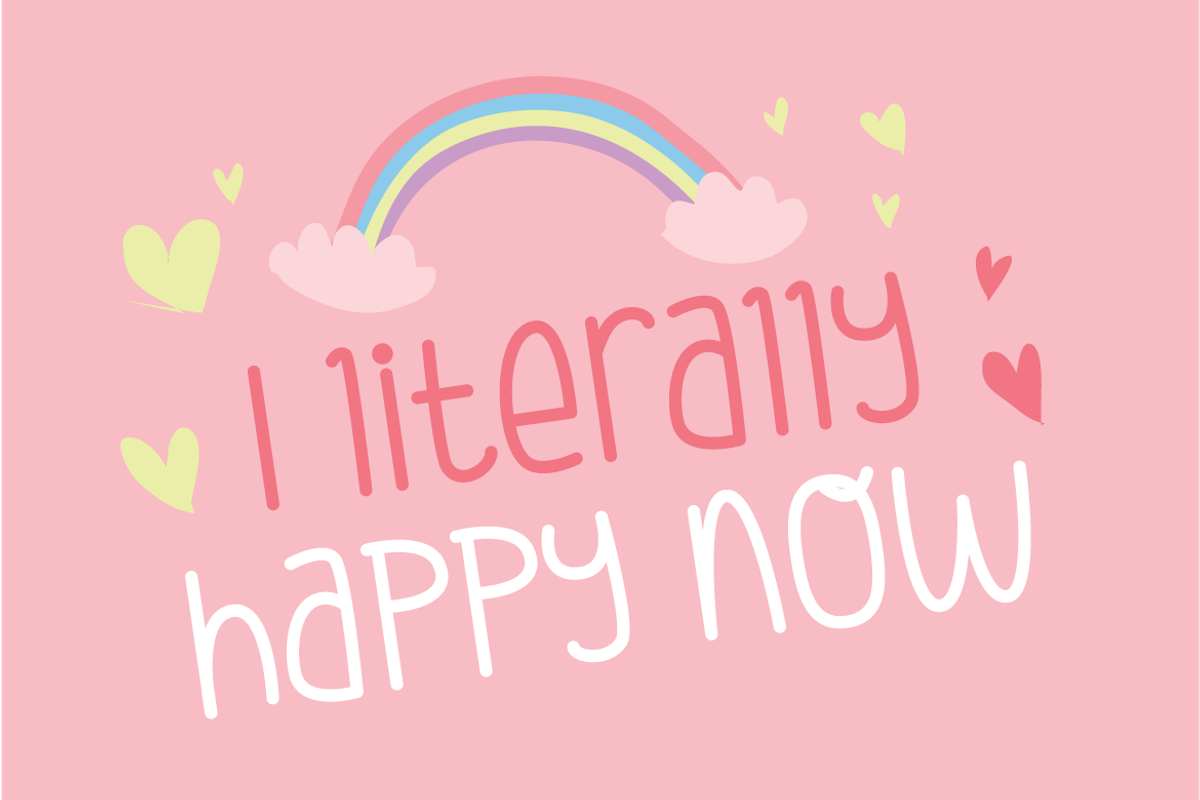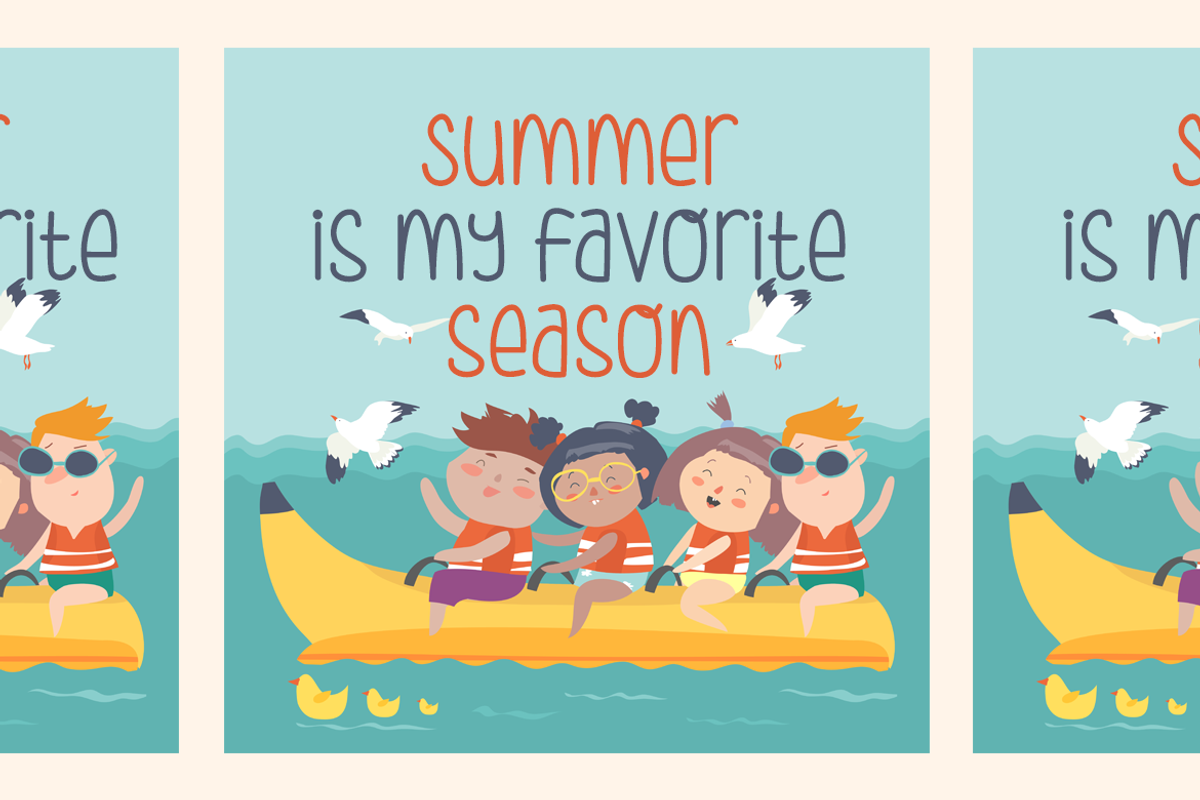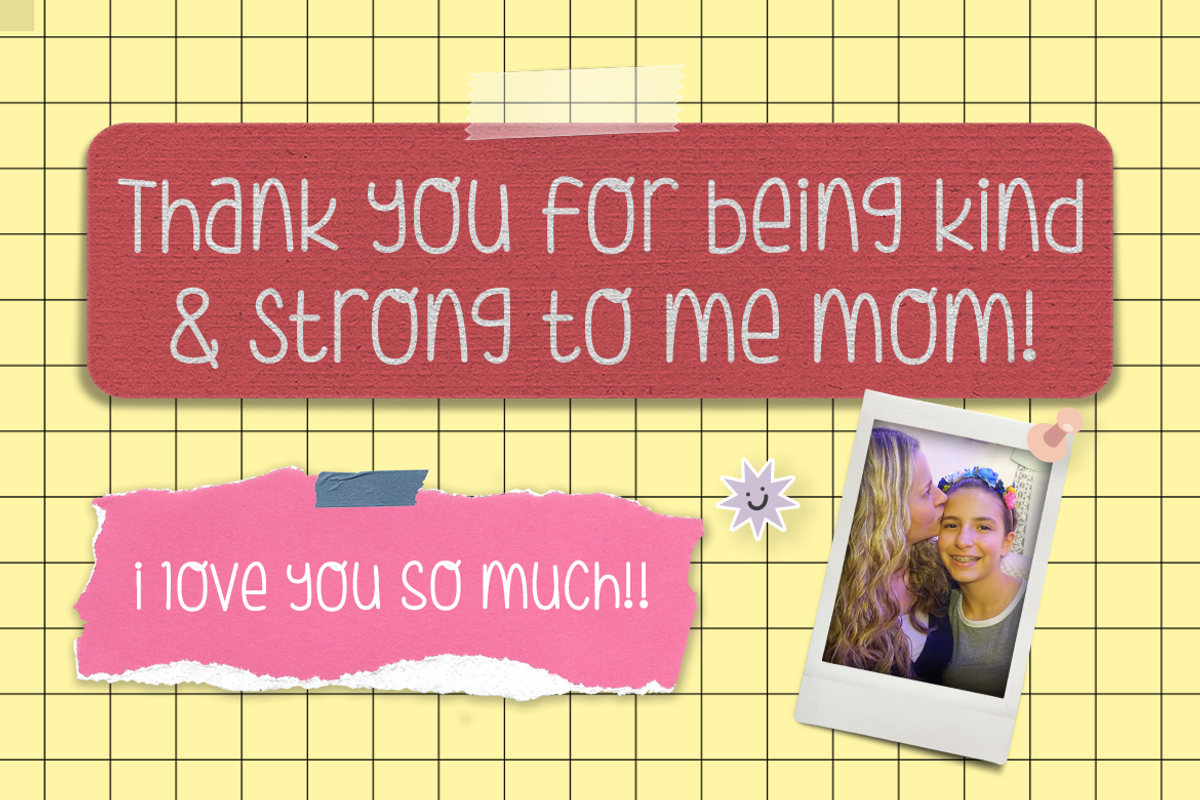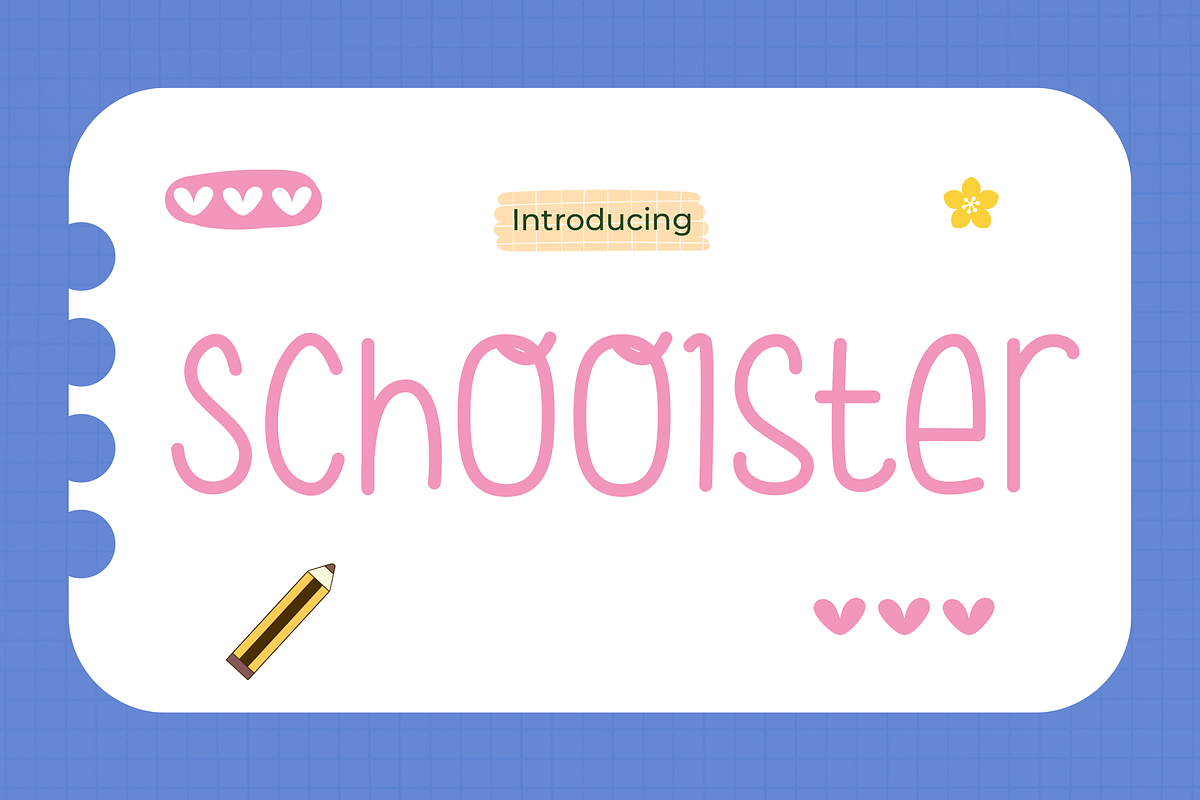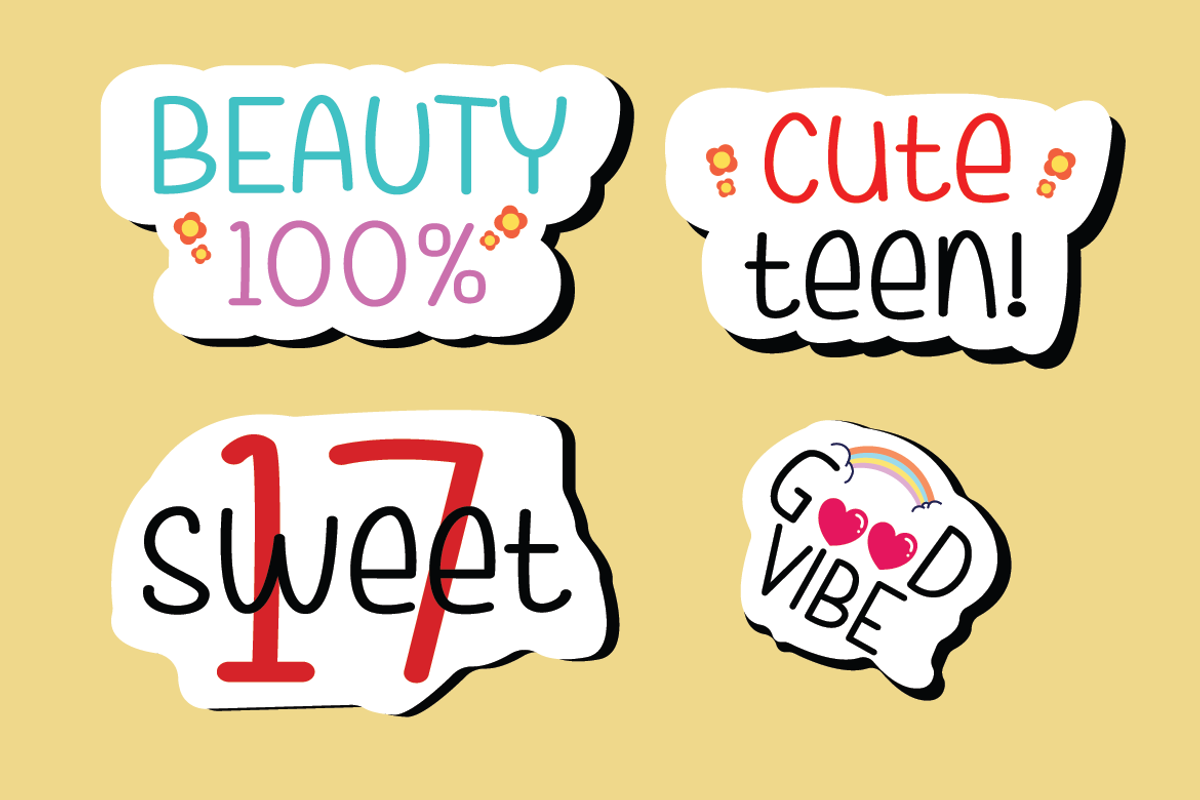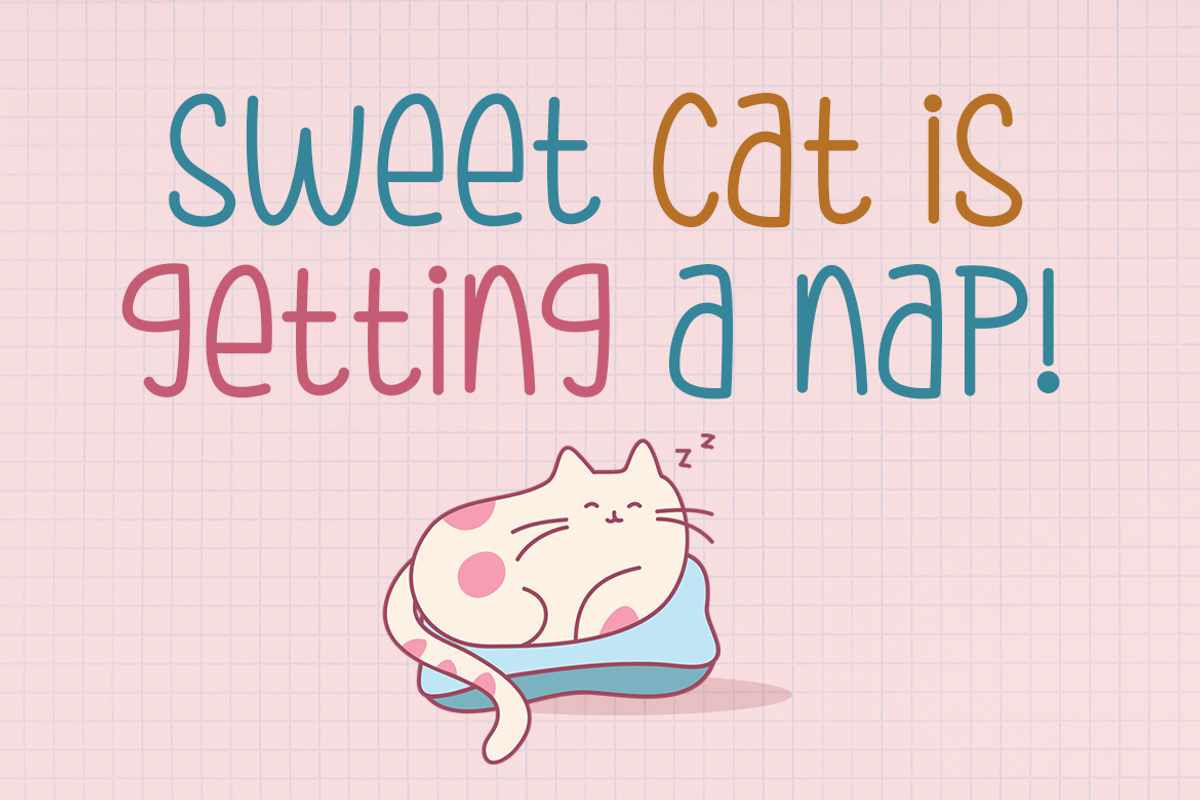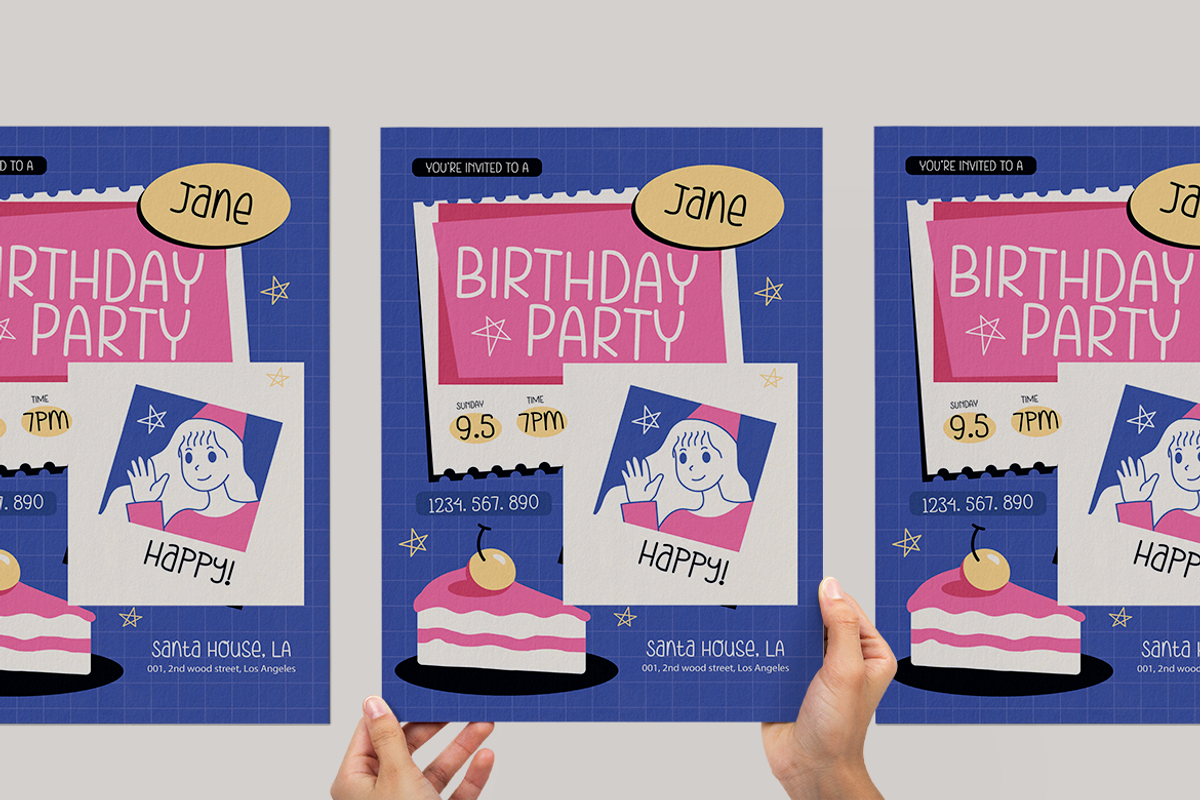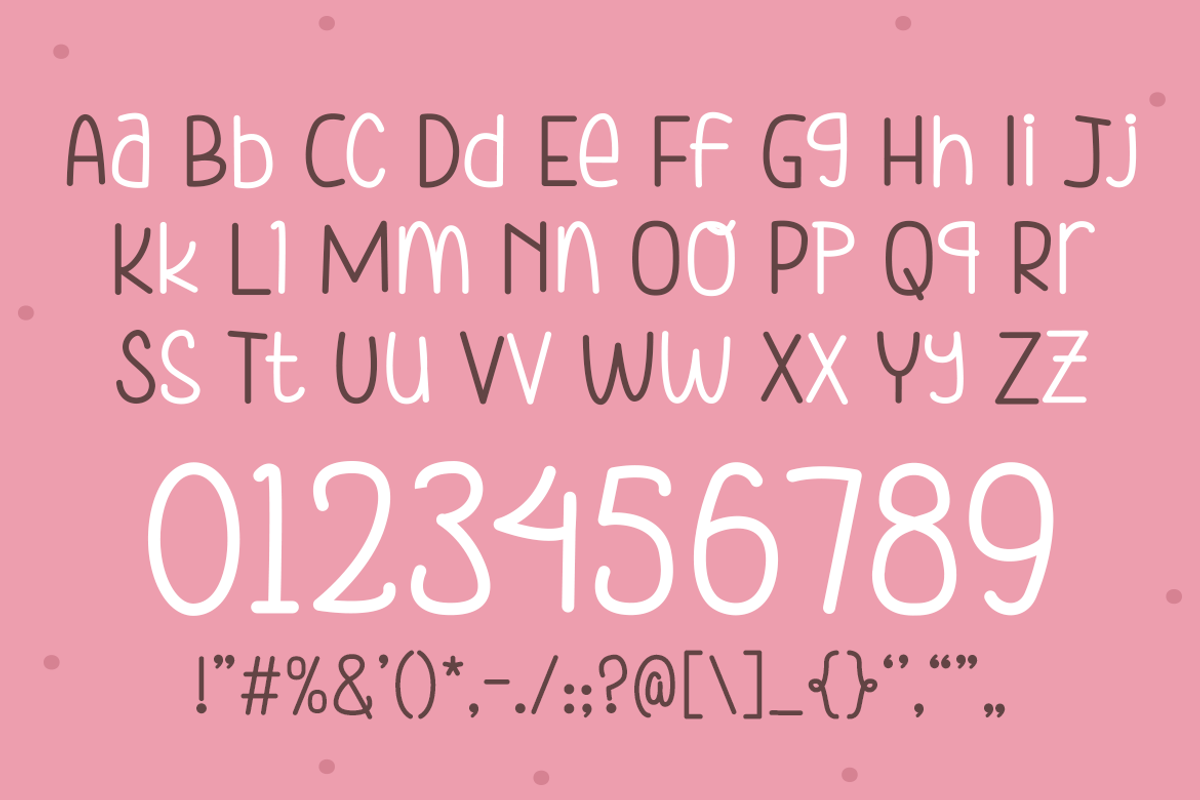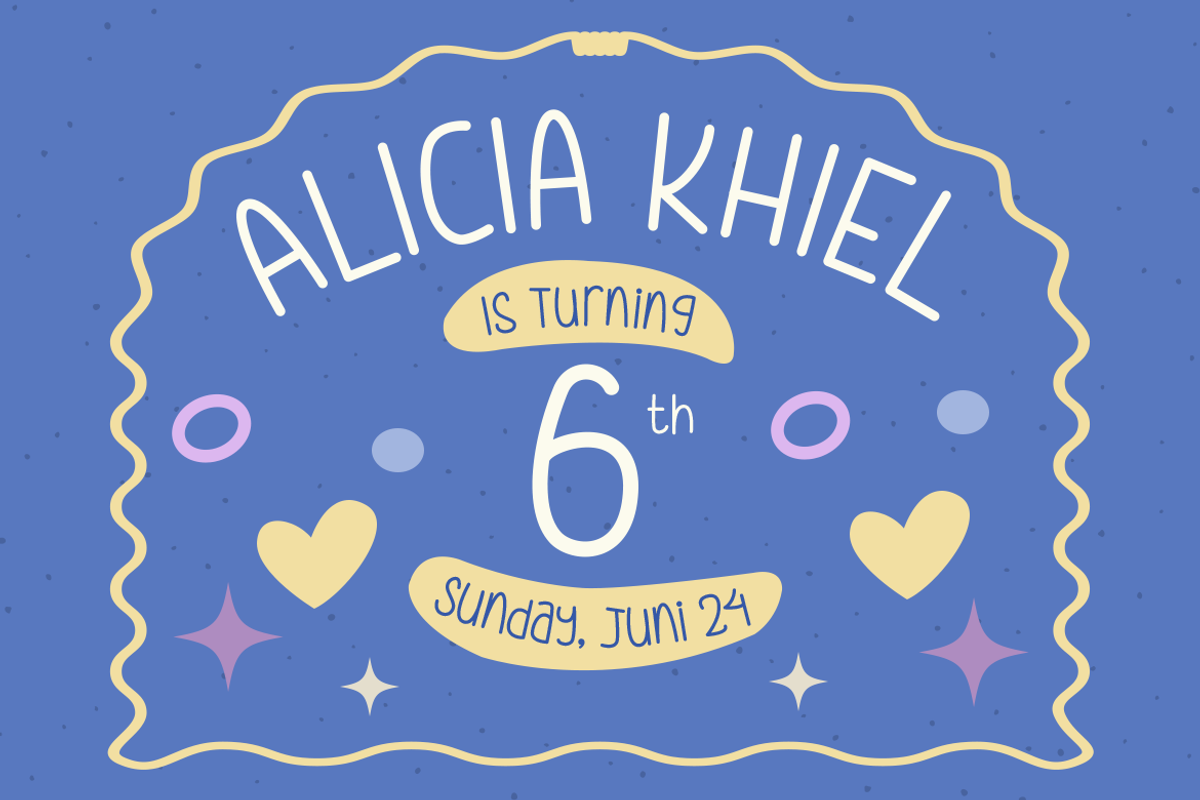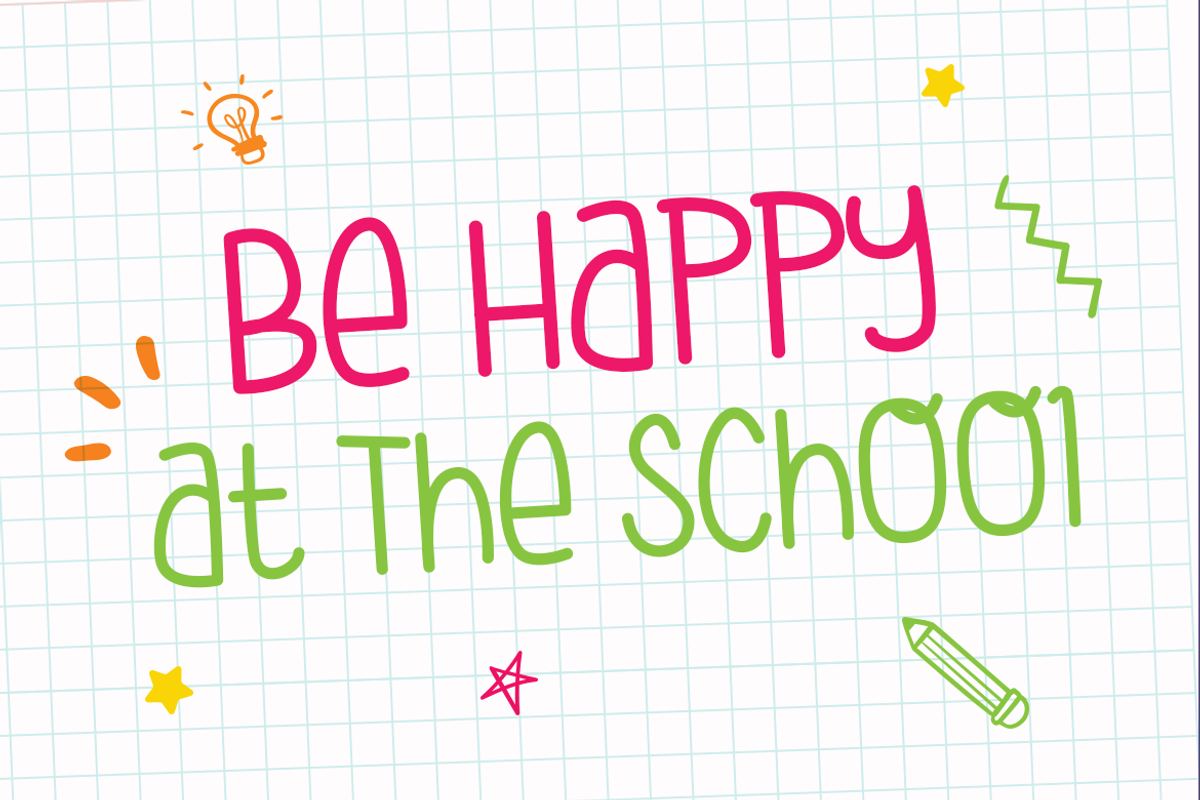
Schoolster
Schoolster – A Cheerful Typeface for Kids and School-themed Designs
We proudly present “Schoolster,” a font specifically crafted to bring freshness and cheerfulness to your designs with a focus on children and school themes. Carefully curated, each letter in “Schoolster” embodies the boundless spirit of joy and curiosity of childhood. This font combines child-friendly elements with clarity for easy readability, ensuring that every word you write exudes delightful appeal. With “Schoolster,” you can infuse enthusiasm and zest into various design projects, ranging from educational materials to children’s products, and even fun classroom decorations.
Nothing quite matches the joy offered by “Schoolster” in every character. This font brings a cheerful vibe that makes it perfect for projects related to the world of children and education. With its friendly style and distinct character, “Schoolster” stands out among other fonts, bringing brightness and fun to every piece of your design work. Make every title, text, or graphic come alive and inspire with the magical touch of “Schoolster.” From school books to promotional materials for children’s events, this font delivers an unforgettable impression that captivates readers and radiates an endless spirit of learning.